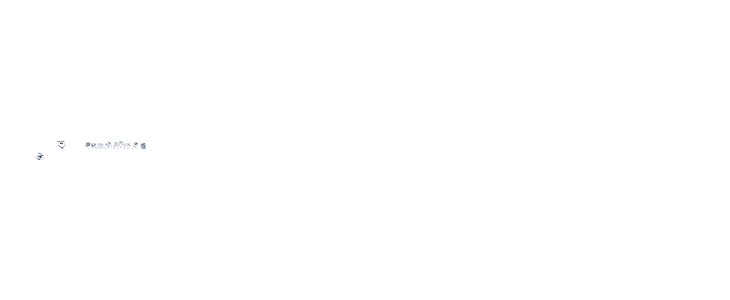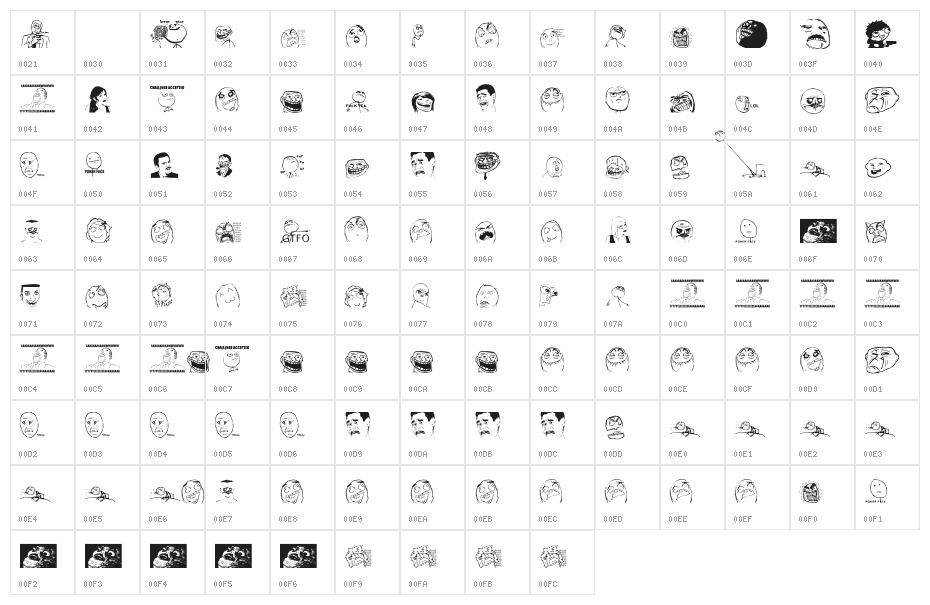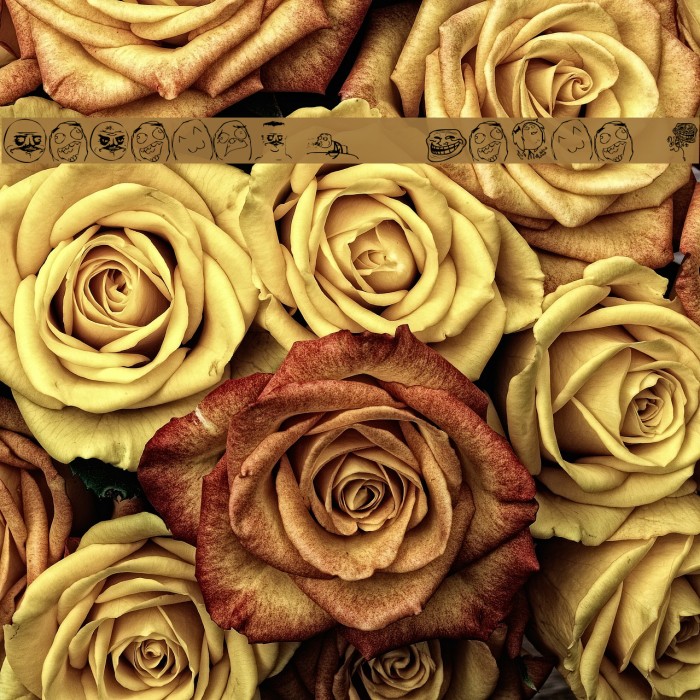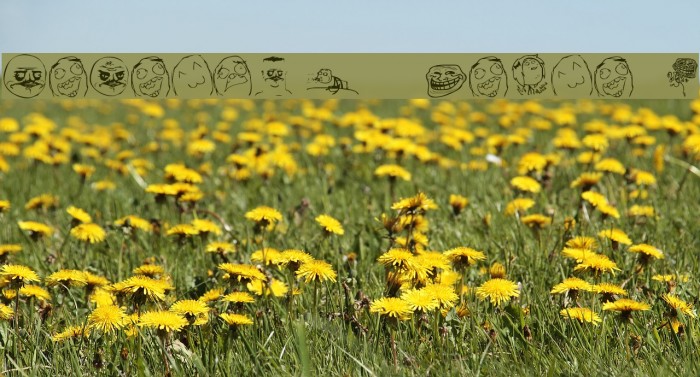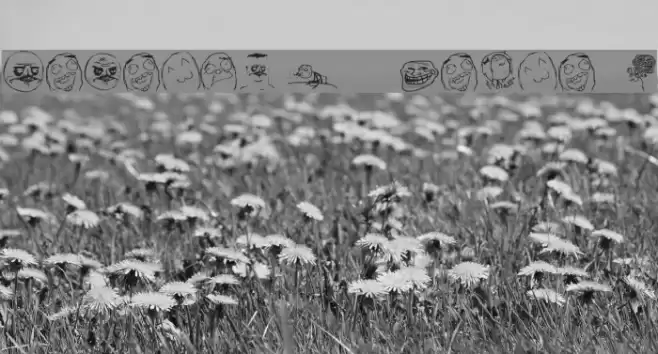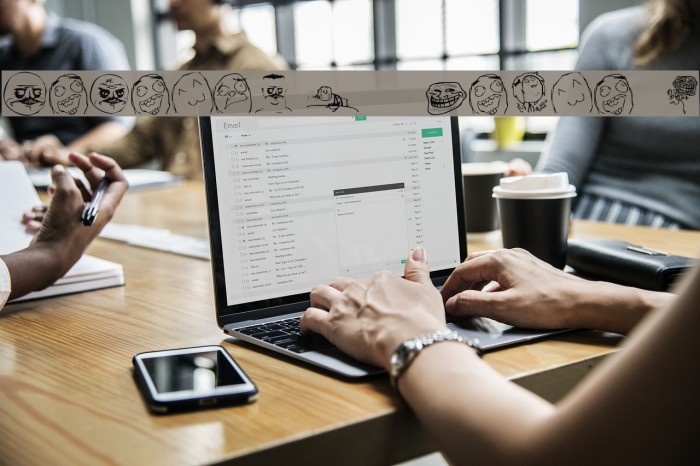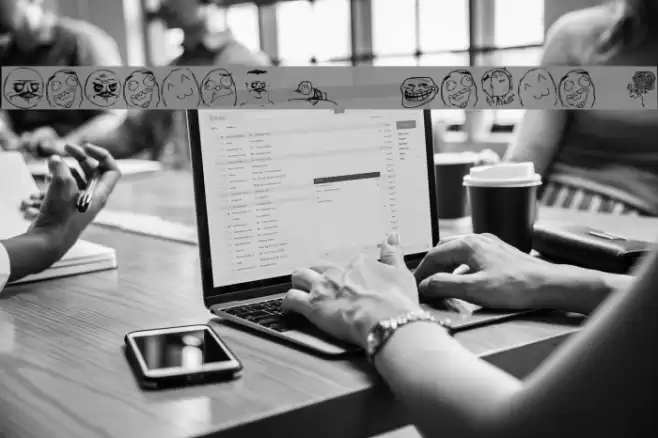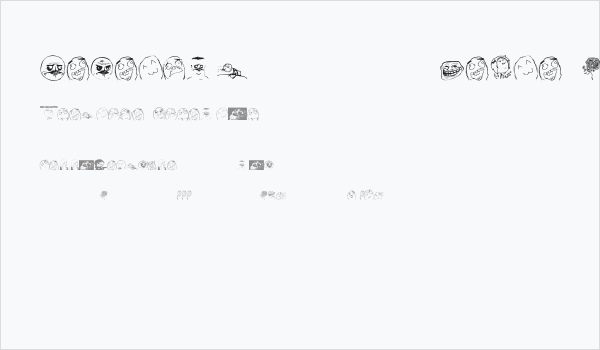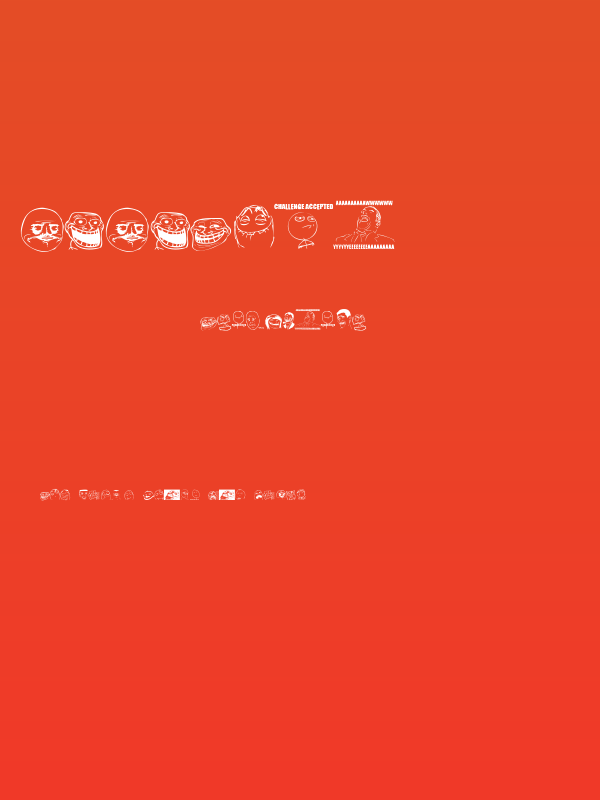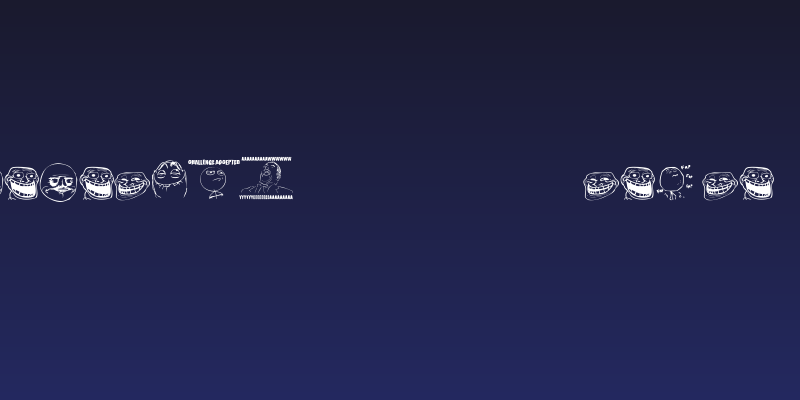
Memetica - Teste 1 Font
Memetica - Teste 1 Description
A collection of hand-drawn, meme-inspired faces and expressions, each with exaggerated features and humorous or emotional undertones. The style is sketchy, informal, and highly expressive, capturing a wide range of emotions and reactions.
| Overall Style | Decorative, Humorous, Sketchy |
| Use Case | Display, Memes, Comics, Posters |
| Proposed Projects | Internet memes, comic strips, humorous posters, social media graphics, novelty merchandise. |